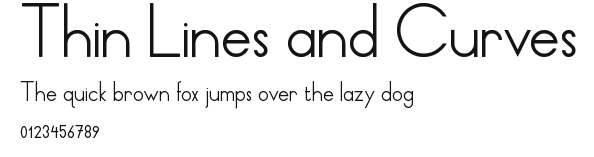
• Font Name: Thin Lines and Curves
• Full Font Name: Thin Lines and Curves
• Designer: Bradley W. Terry
About Thin Lines and Curves.ttf
Thin Lines and Curves.ttf is a modern, elegant sans-serif font designed for ultimate readability and visual harmony. Perfect for branding, headlines, web design, and print materials.